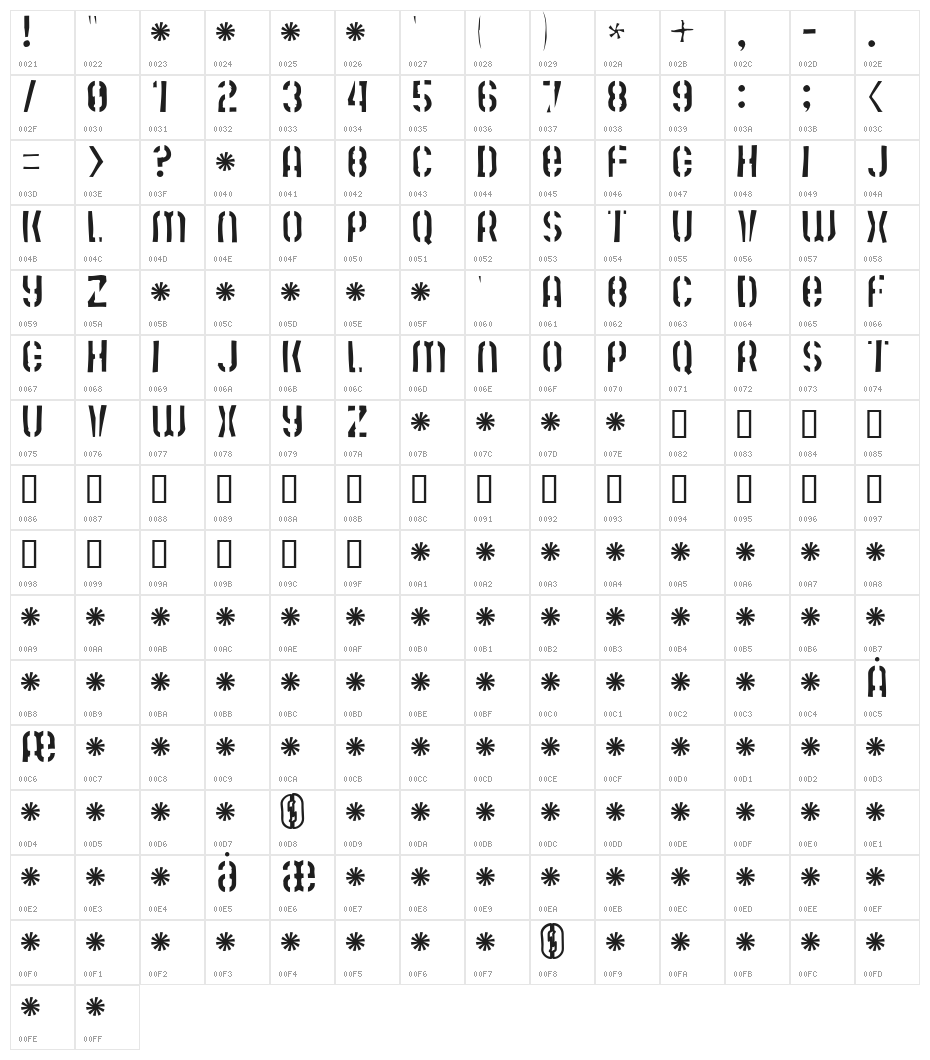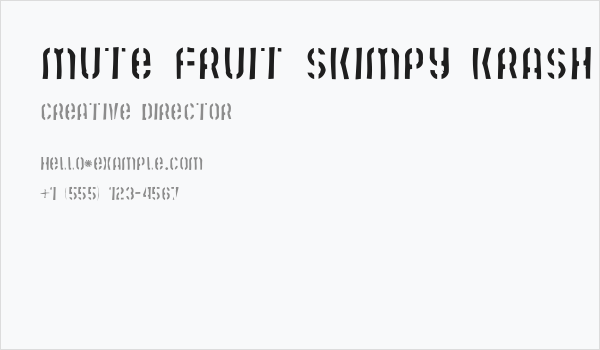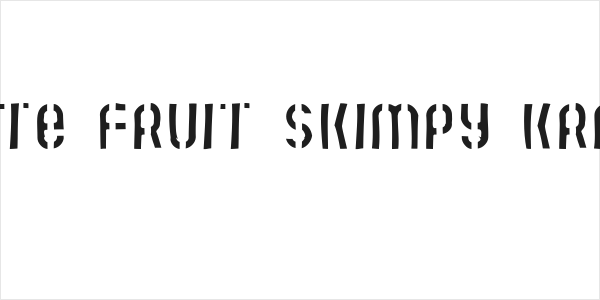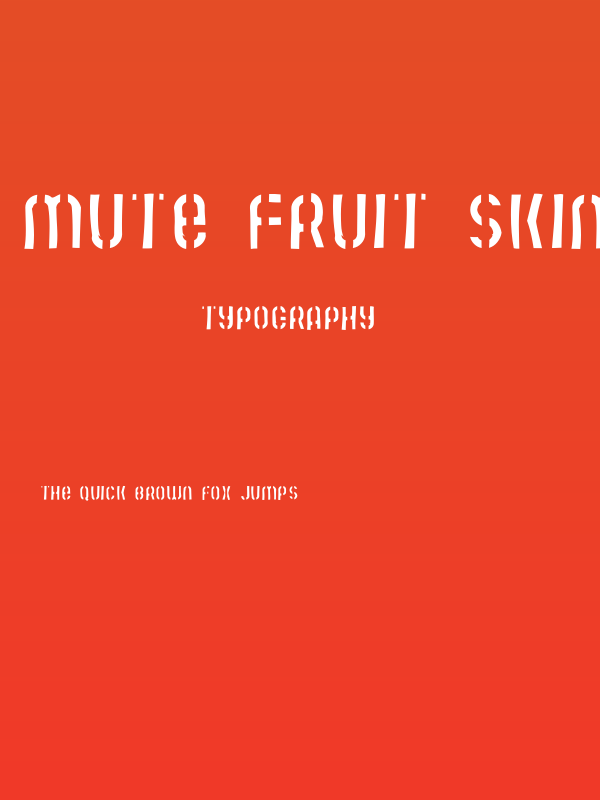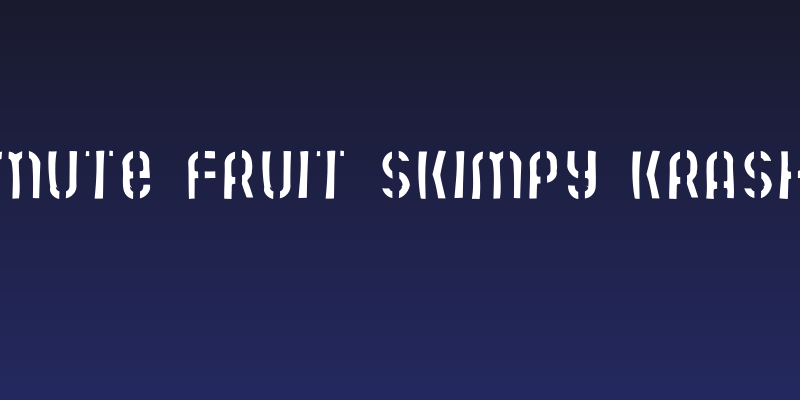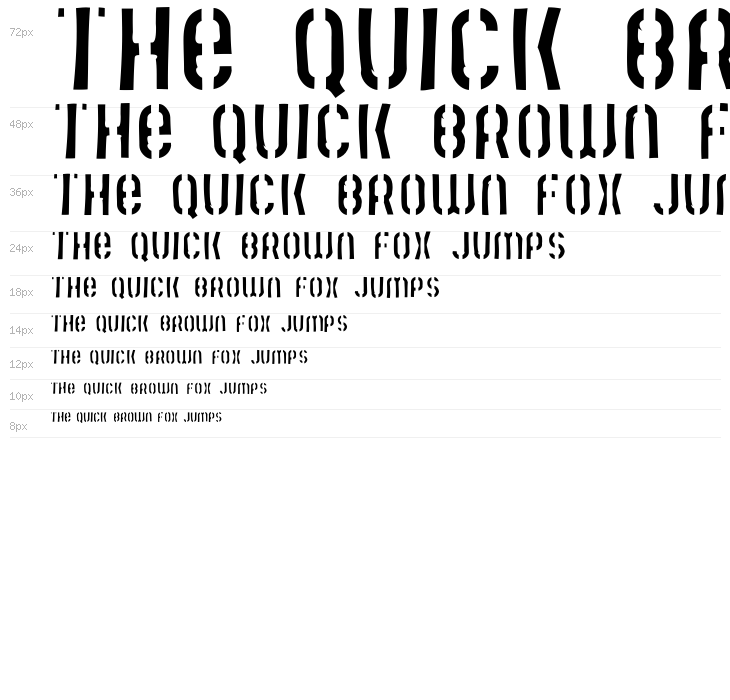
Mute Fruit Skimpy Krash Font
Mute Fruit Skimpy Krash Description
This font features a bold, stencil-like design with distinct cut-out sections in each character, creating a strong and industrial feel. The uppercase and lowercase letters maintain a consistent style, with sharp edges and uniform thickness. The numbers and special characters follow the same aesthetic, ensuring a cohesive look across all elements. The font's unique appearance makes it stand out, ideal for projects that require a modern and edgy touch.
Overall StyleModern, Industrial
Proposed ProjectsIdeal for branding, posters, signage, and any project requiring a modern, industrial aesthetic.